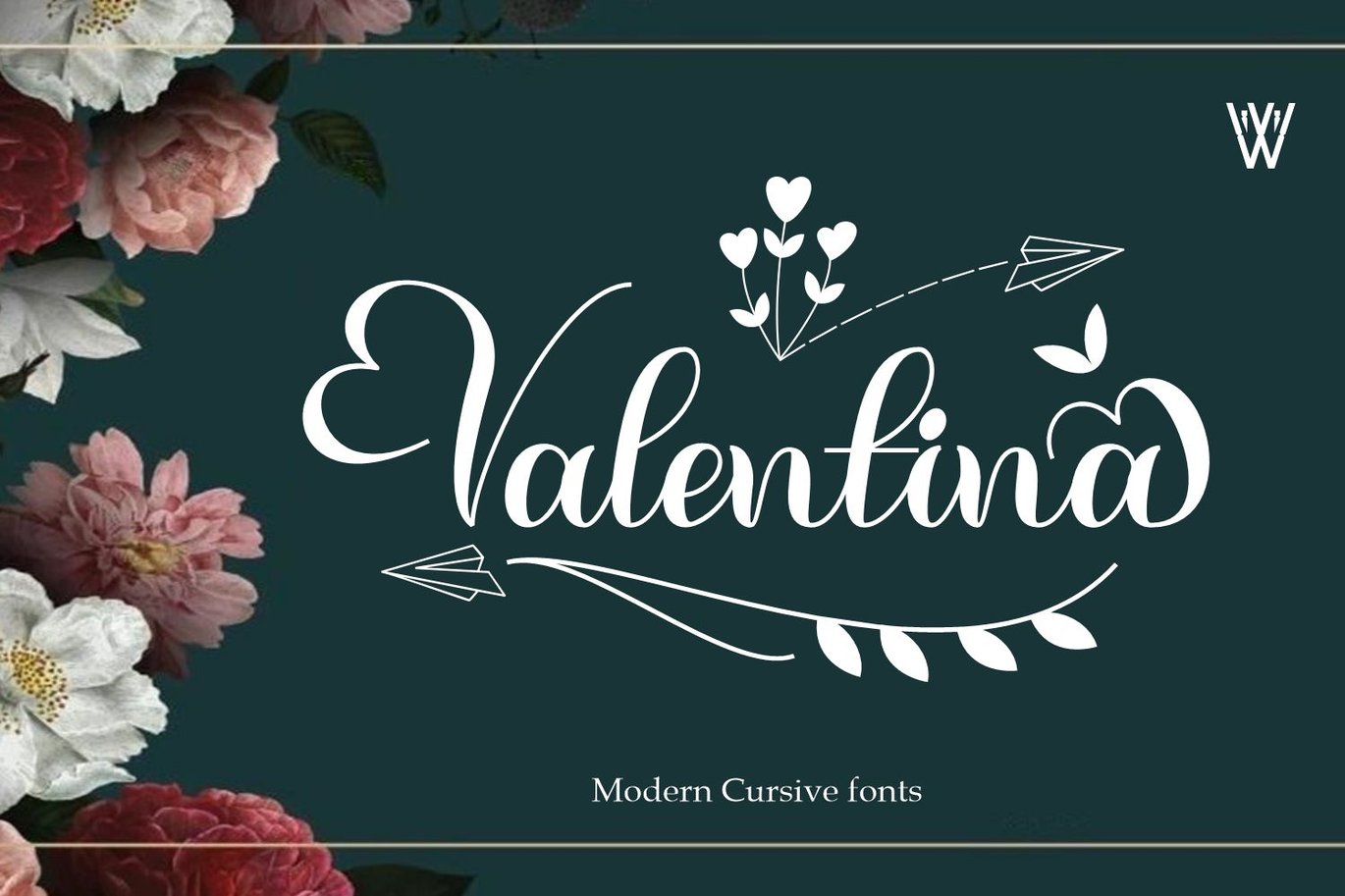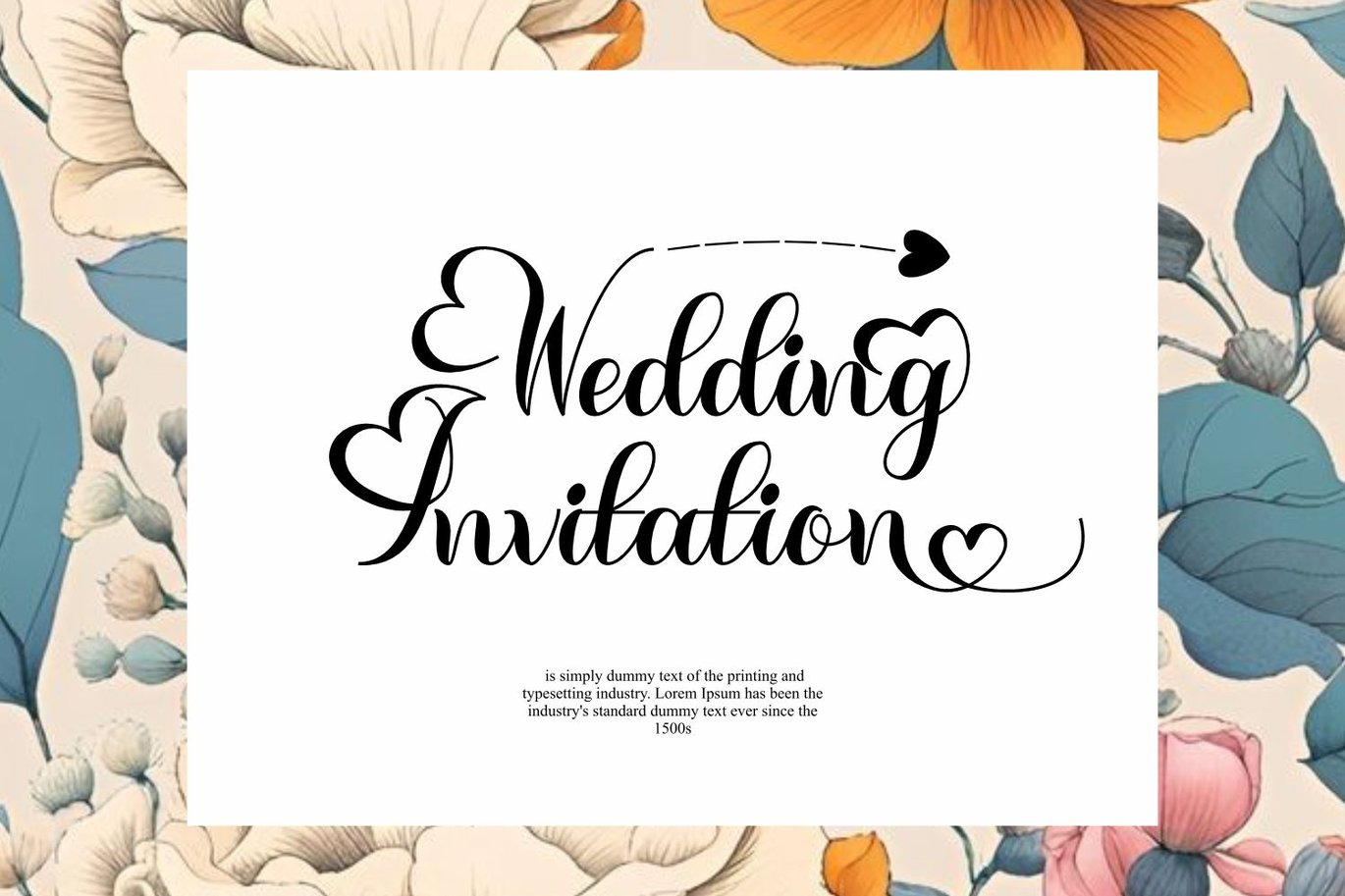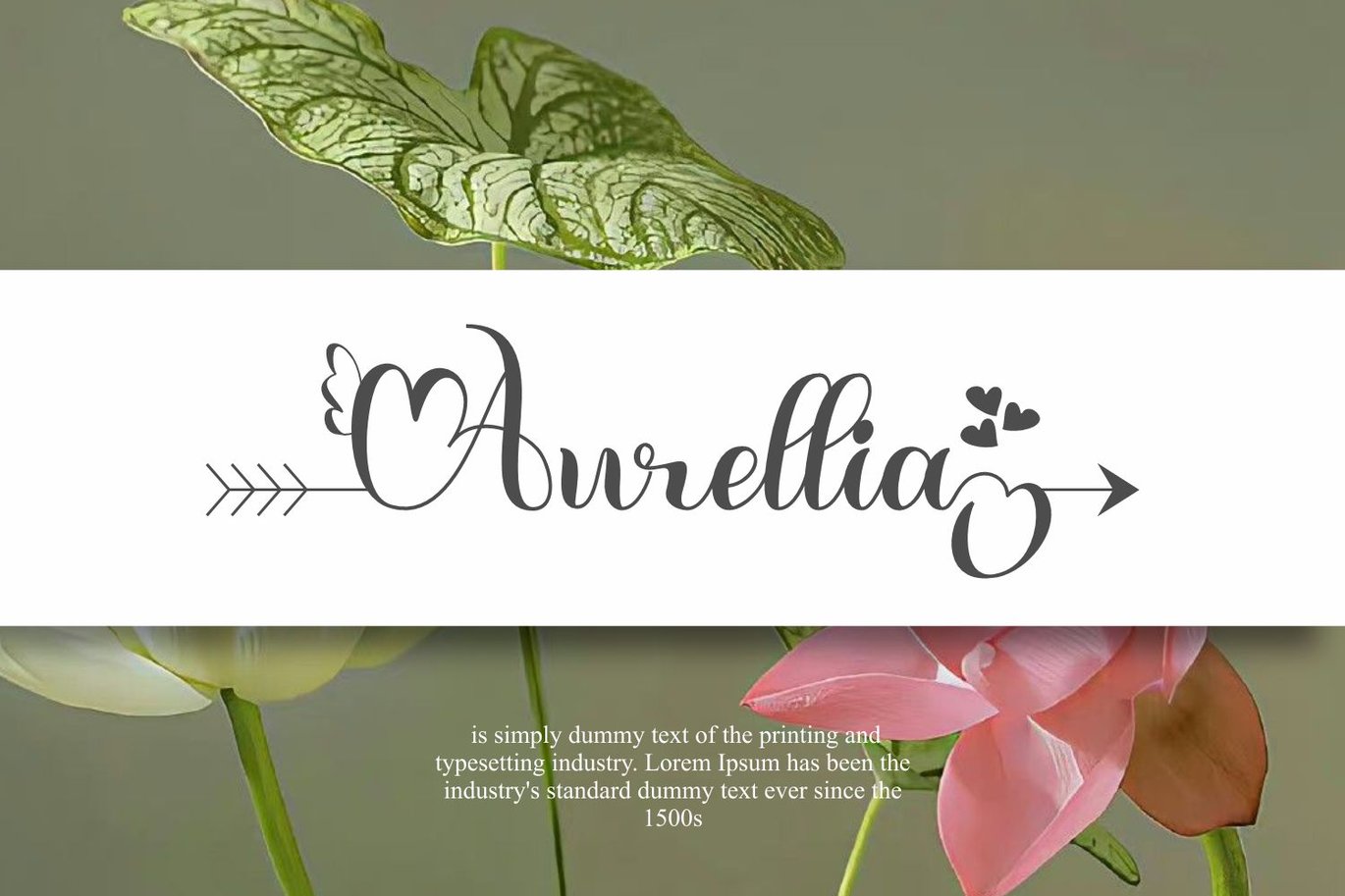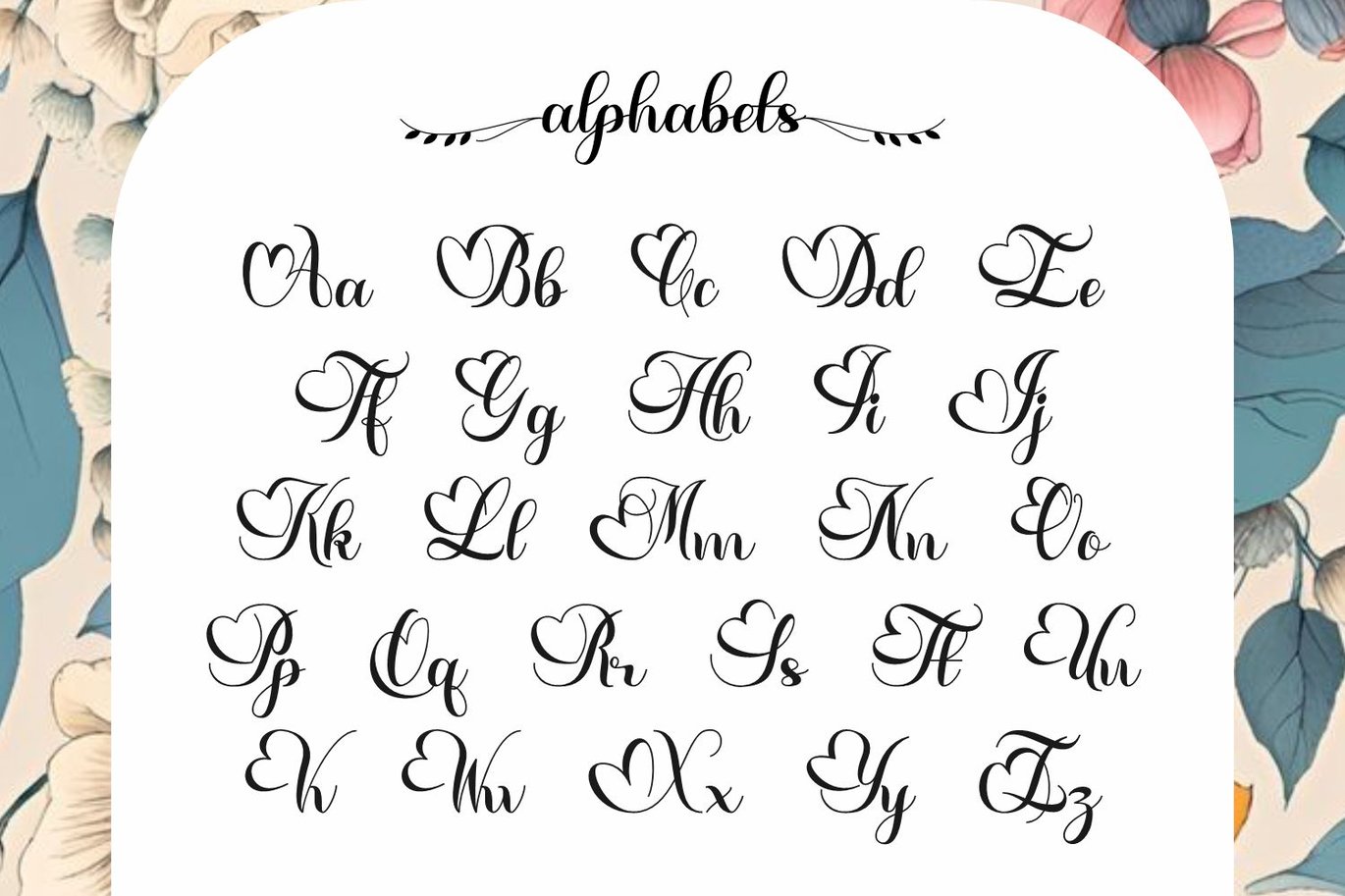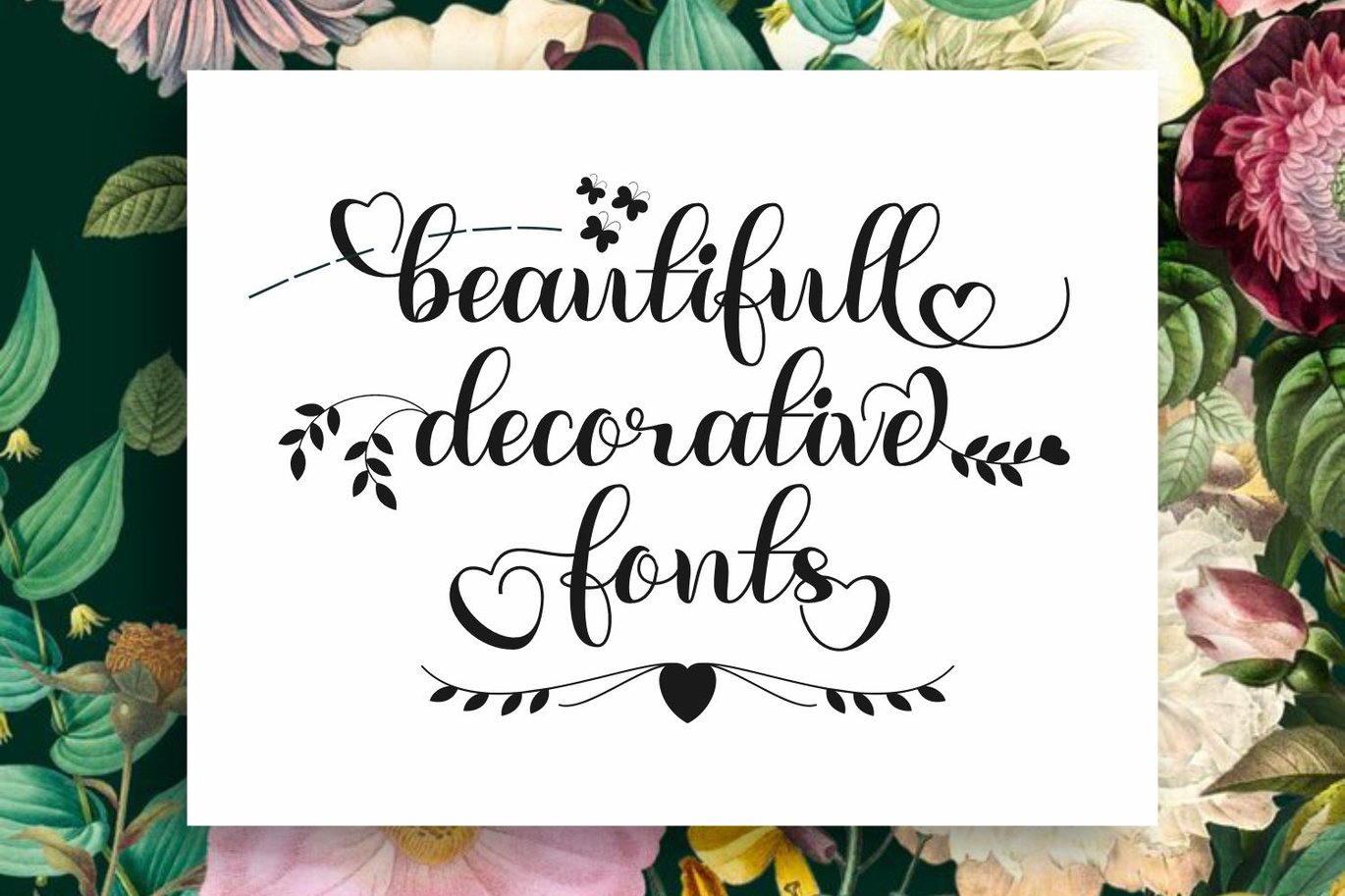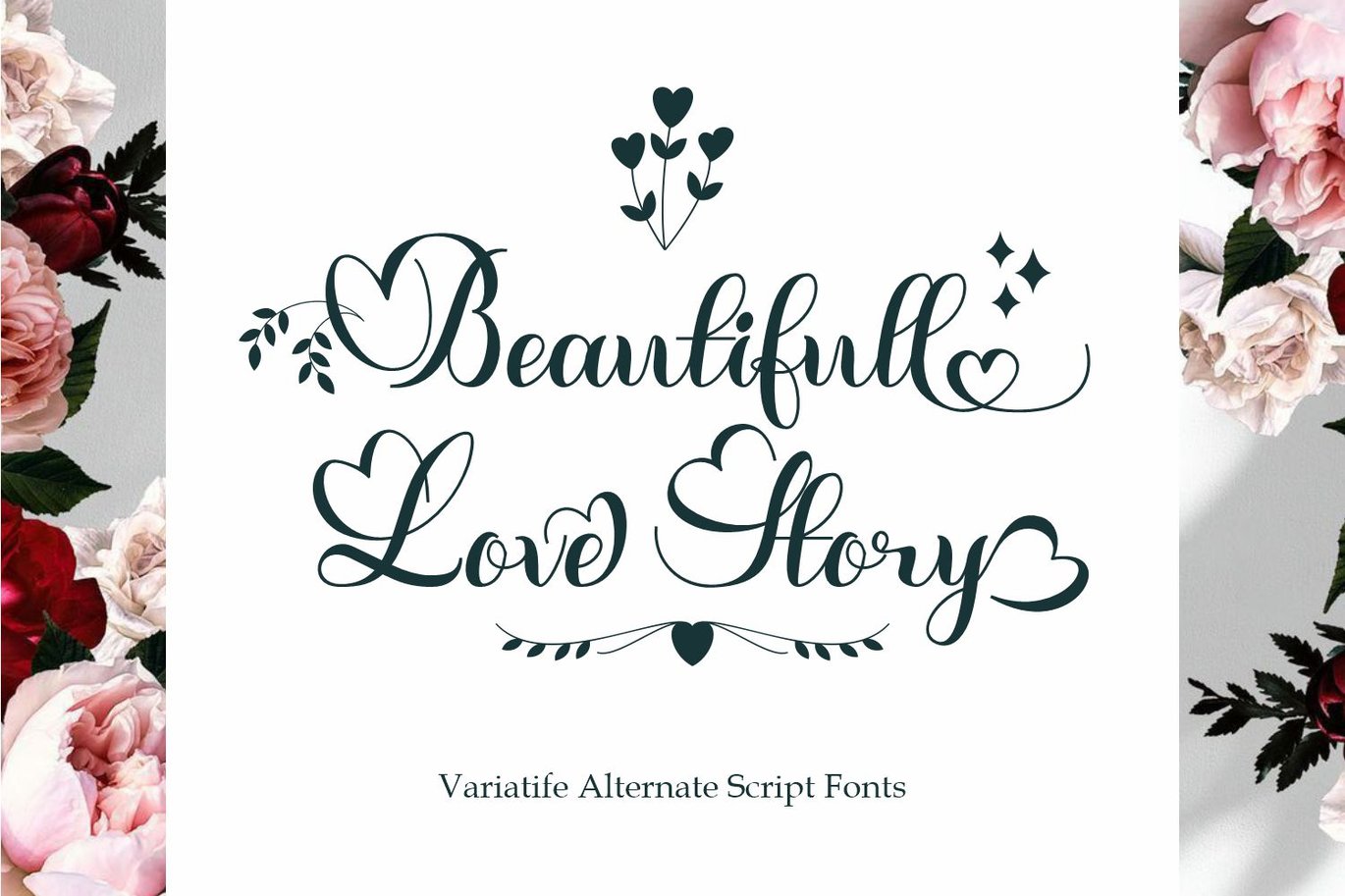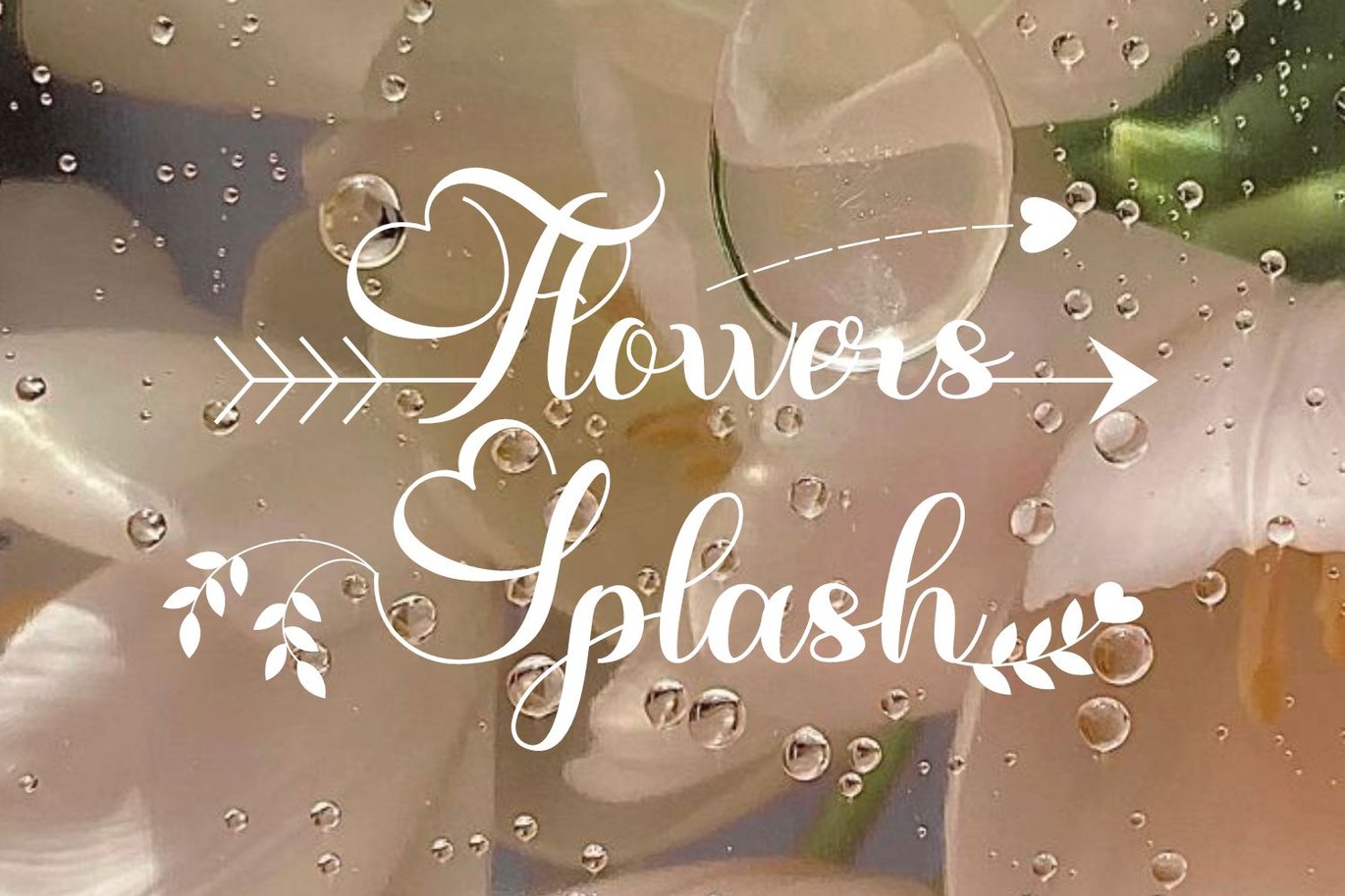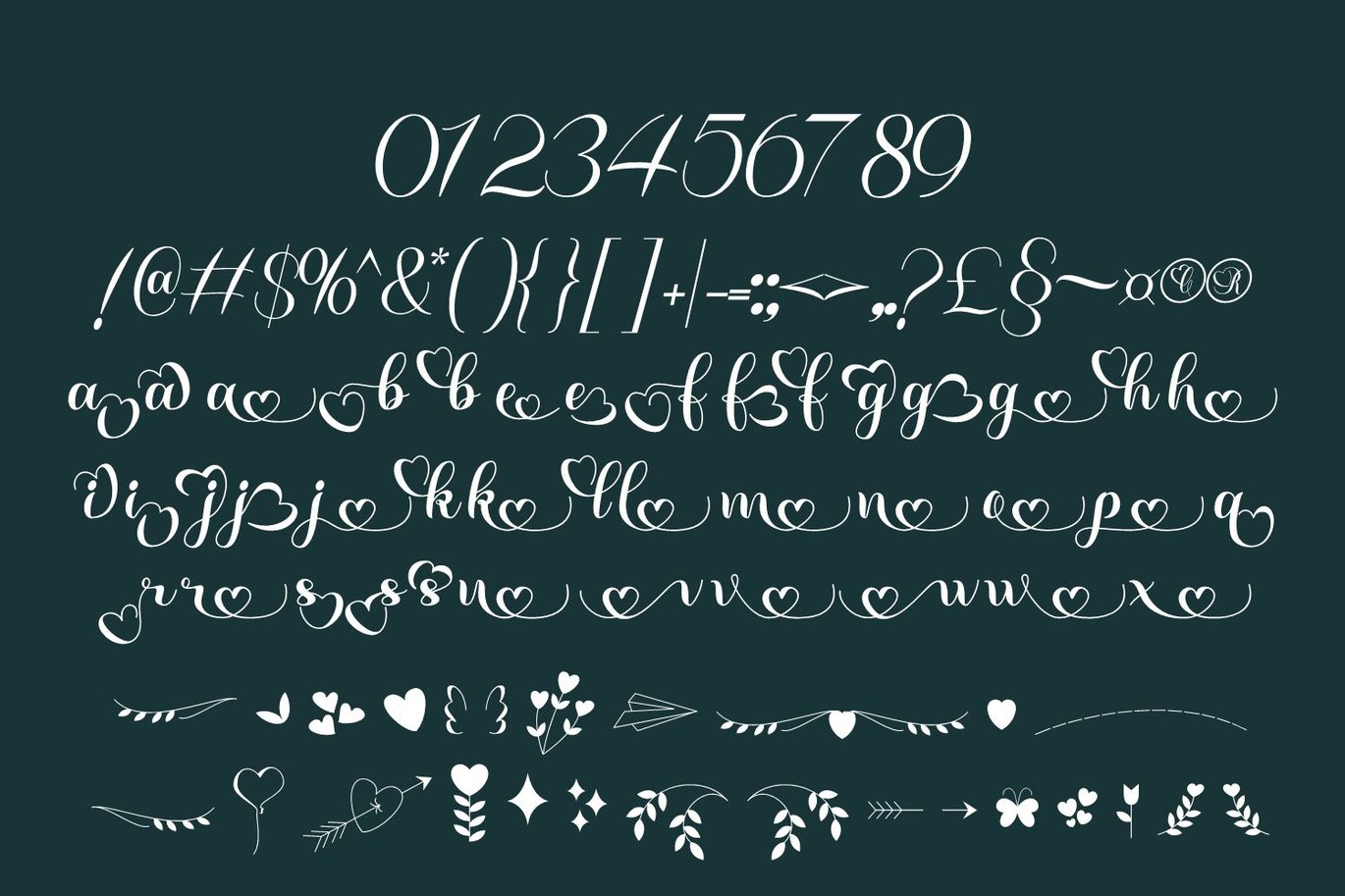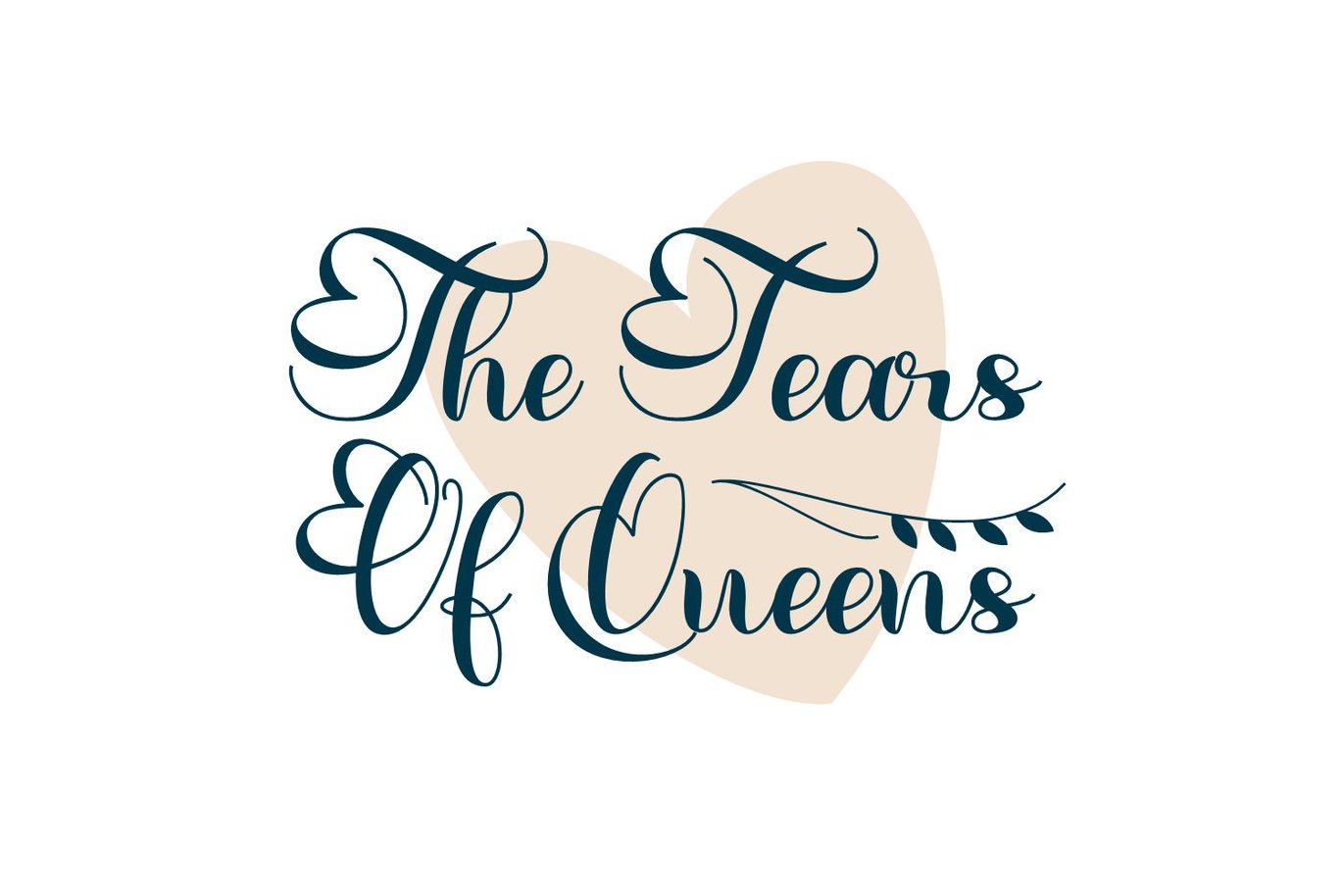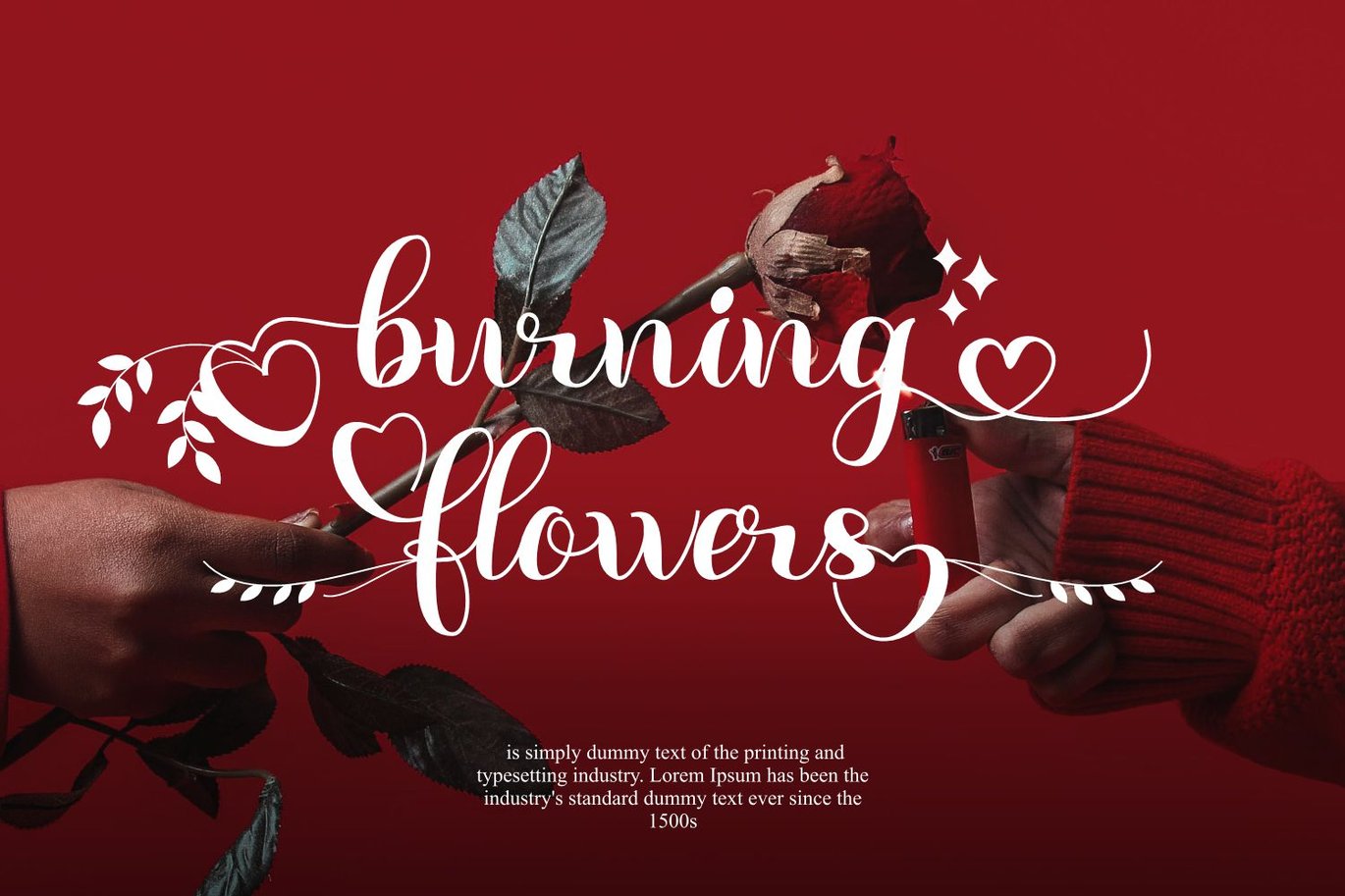
Valentina | Cursive font
The Valentinafont was inspired by the Valentine occassion itself. Which this font wants to present beauty, elegance but looks relaxed and is suitable for use in several aspects of design design such as, Christmas celebrations, wedding invitations, Easter events, Valentine Day and many more.
By taking a relaxed impression and Cute girly elements. Valentina wants to carry a relevance to market needs, I as a creator am very aware that currently fonts that are suitable for use in many themes and platforms are very popular.
So the inspiration and narrative that I want to build refers to my desire to make Valentina font as a font that can fill your design ideas and inspiration.
This font has a tropical, flexible, luxurious, fun feel. which you can see in the visual fields and lines contained in the Valentina font. which is where the basic foundation of this font has a script font type which of course is very flexible to be used in any field. such as logo design, posters, tourist brochures, pamphlets, wedding invitations, valentine, Christmas, Easter letters and posters, as well as presentations for tourist sites.
in valentina font I also complete with additional vector icons with valentine day theme, which you can access in Valentine Icon otf/ttf font format.
Therefore, I present to you the Valentina font.
Explore your creativity with Valentina fonts.